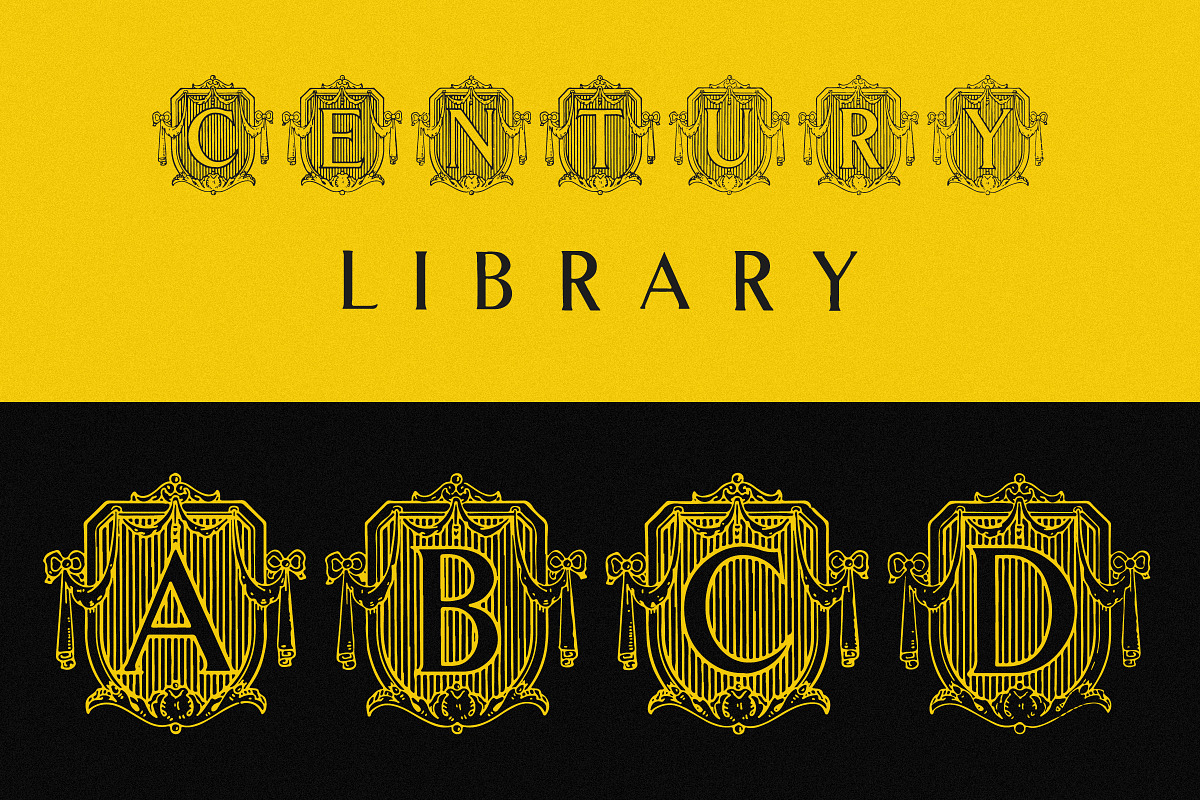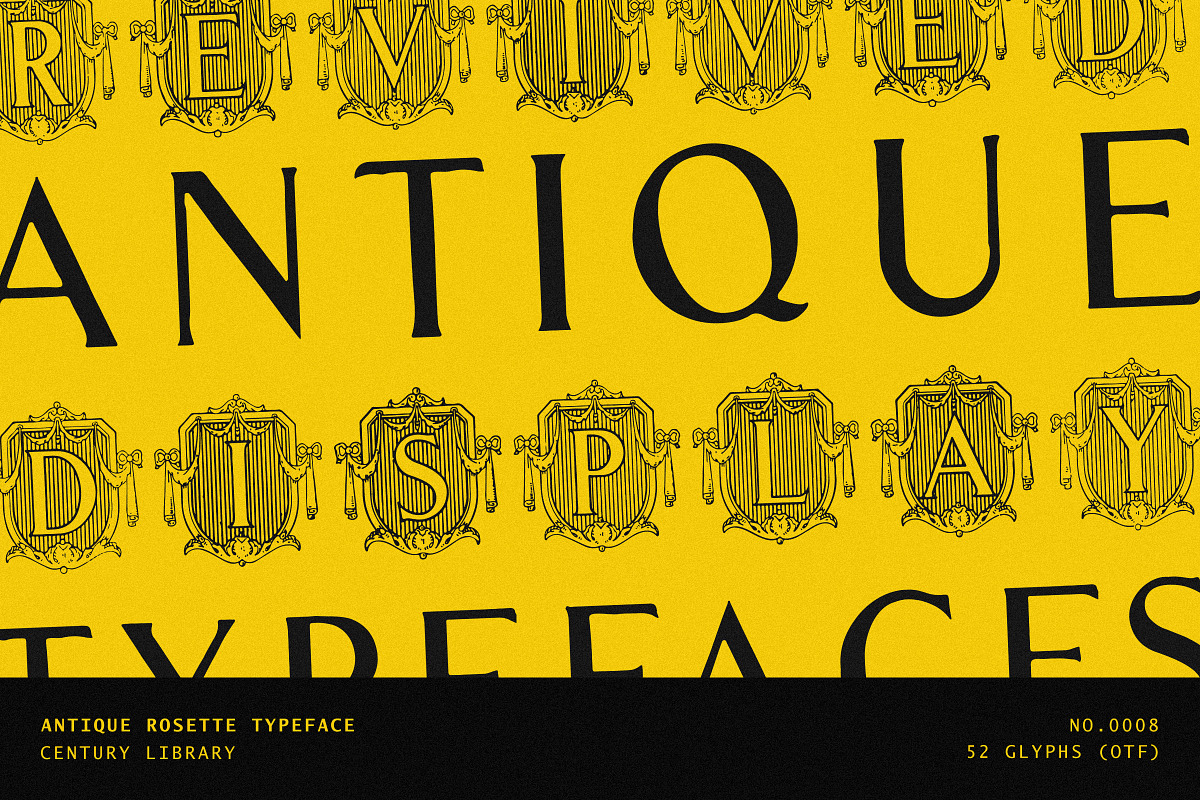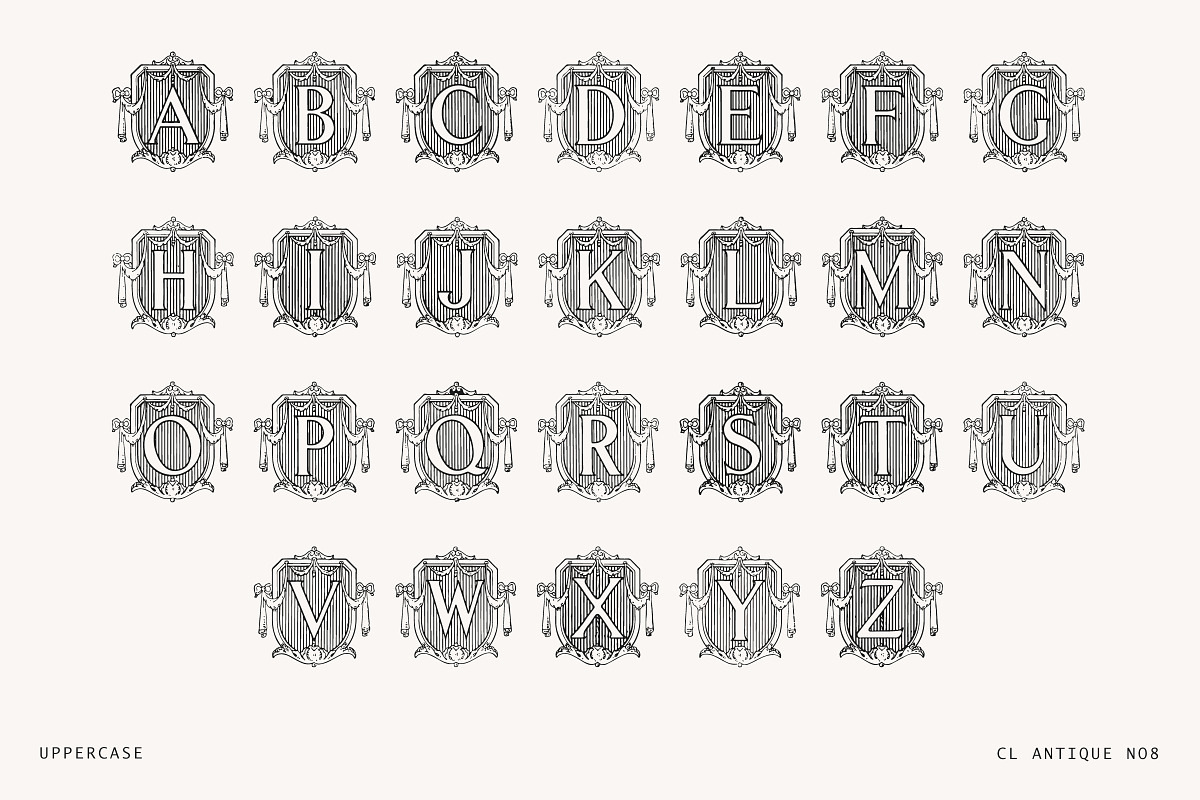
Vintage Ornate Badge Font - No.8
Introducing CL Antique No.8 – a stunning restored Victorian ornate crest font featuring detailed heraldic shield designs wrapped around elegant 19th-century letterforms.
This unique font is part of the Century Library archive collection, carefully revived from original antique specimens. Each character has been meticulously scanned, cleaned, and converted into a working font, preserving all the lavish detail, linework, and old-world charm of the originals.
These aren’t modern reinterpretations. Every glyph is a faithful recreation of genuine Victorian craftsmanship – from the ornate shields to the subtle imperfections that give each letter real historic character. The character set is limited to what was available in the original source material.
Perfect for creating bold logos, luxury branding, packaging, book covers, wedding stationery, and any design that calls for a dramatic vintage statement.